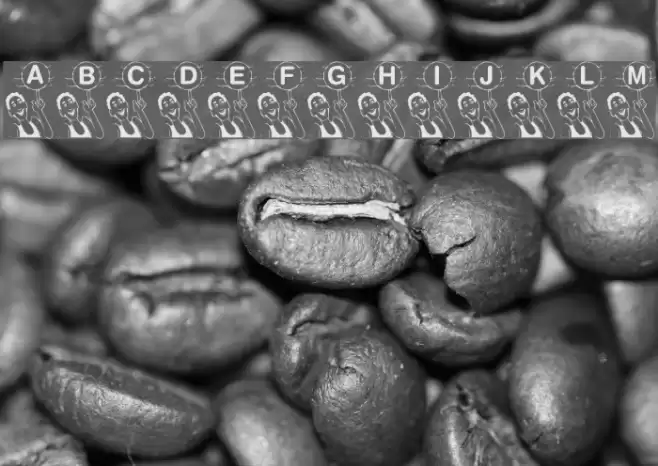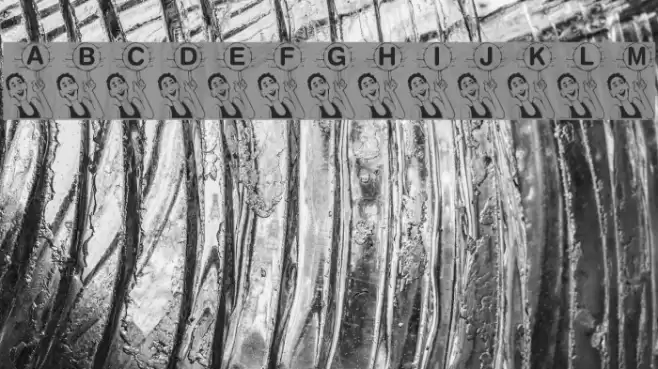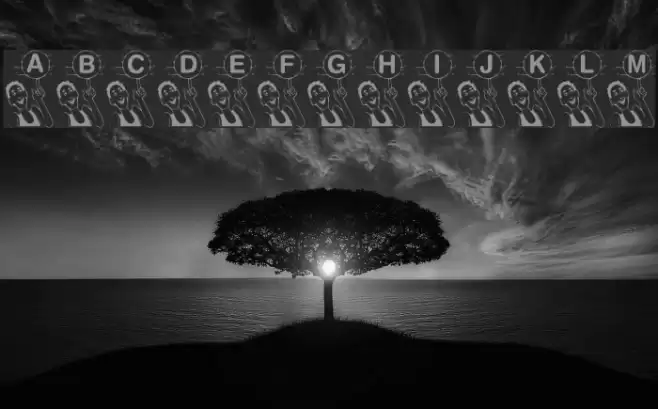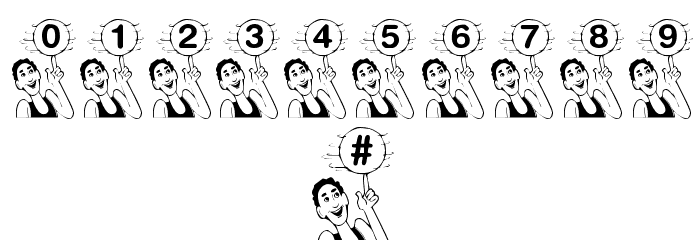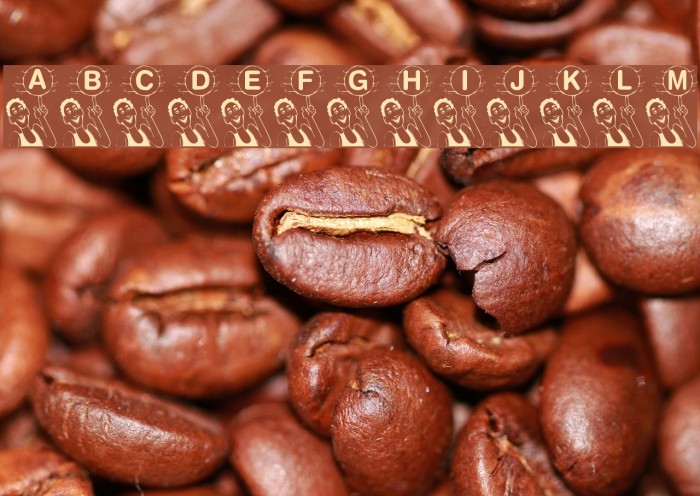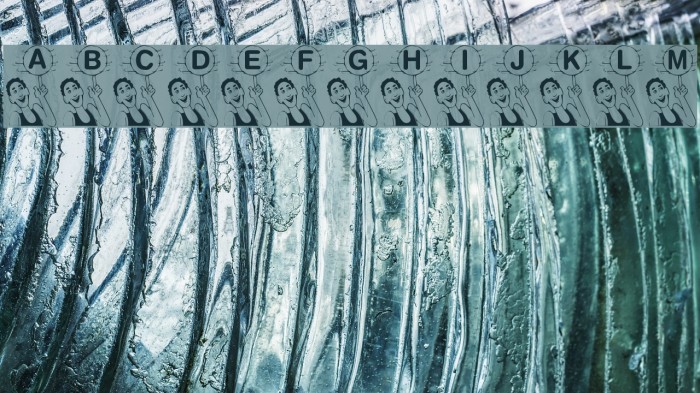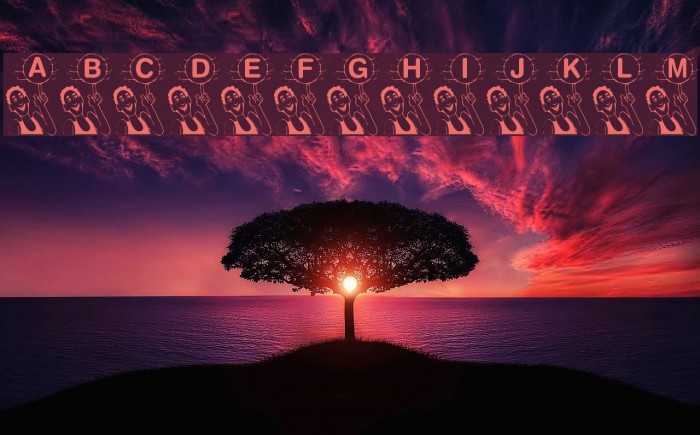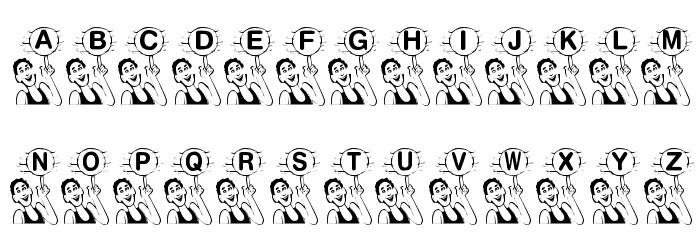
KR B'ball Font
KR B'ball Description
This font features a playful and unique design where each character is encased within a basketball held by a cartoonish figure. The style is highly decorative, with each letter and number presented in a bold, uppercase format. The characters are surrounded by dynamic lines suggesting movement, adding to the energetic feel of the font. The overall appearance is whimsical and sporty, making it ideal for projects that aim to capture a fun and athletic vibe. The font's distinctive style makes it stand out, perfect for creative and informal uses.
A playful, basketball-themed decorative font with bold, uppercase characters from Uncategorized fonts.
- Proposed Projects: Ideal for sports-themed posters, children's event flyers, playful branding, and merchandise designs.